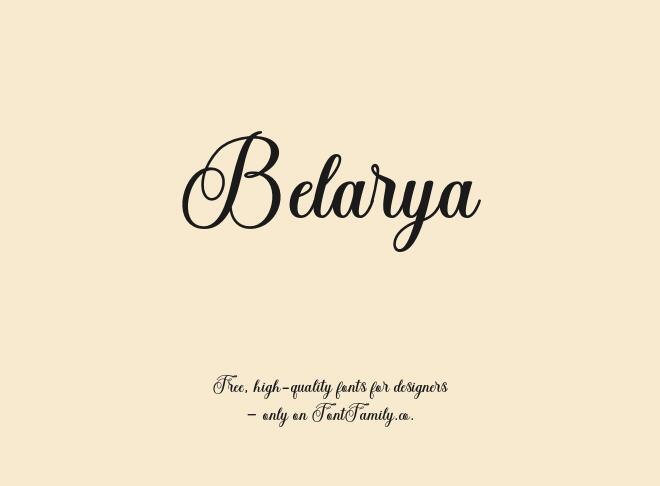
Belarya Font
Belarya Font is a modern, elegant, and versatile script typeface that exudes a sense of sophistication and refinement. Crafted by the talented team at Belarya Design Studio, this handwritten font features a unique blend of contemporary and classic styles, making it a perfect choice for various design projects. Its fluid curves and clean lines make it ideal for logos, branding, wedding invitations, social media posts, and more. Compared to other fonts, Belarya stands out for its distinctive style and high readability, even at smaller sizes. Its fine balance between elegance and practicality sets it apart, making it a must-have for designers.